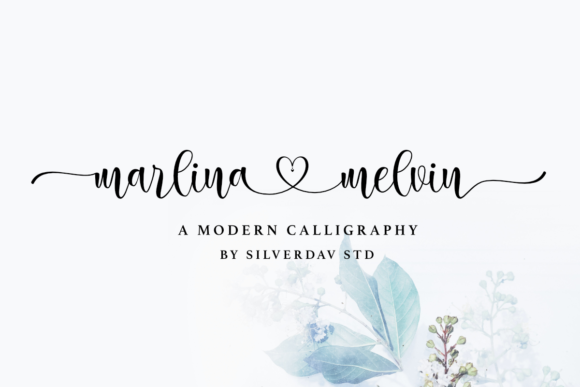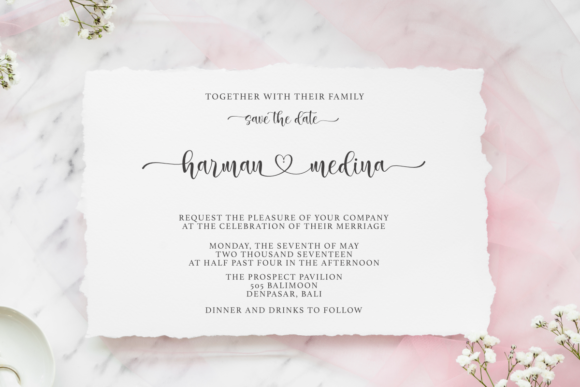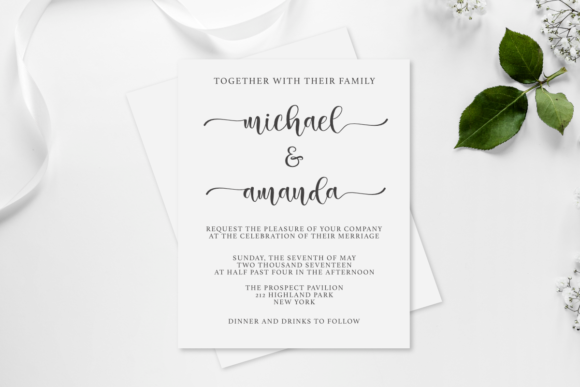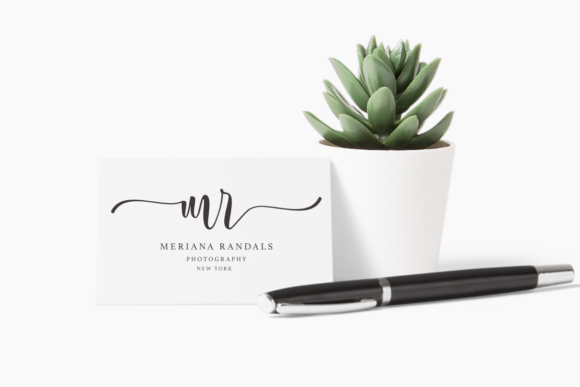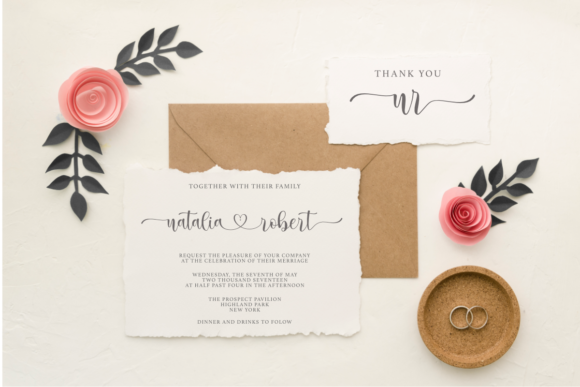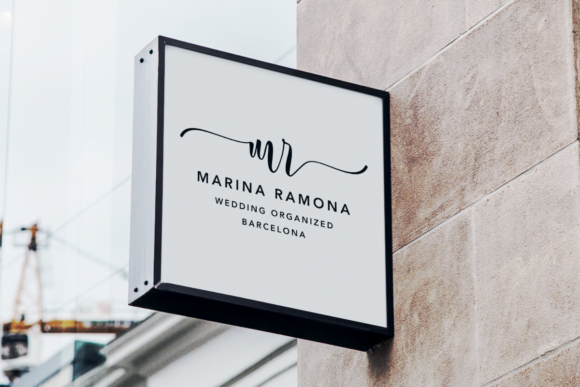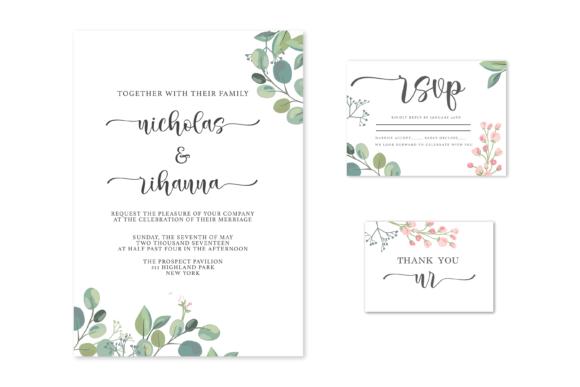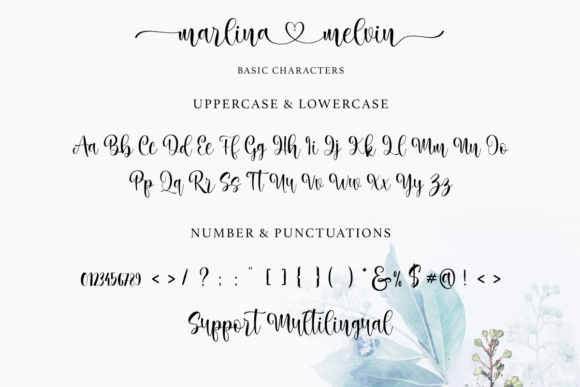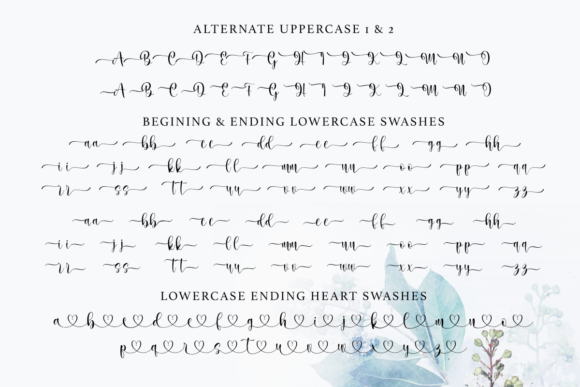
Marlina Melvin Font
About Marlina Melvin Font
Marlina Melvin feels incredibly romantic and unique. It looks stunning on wedding invitations, thank you cards, quotes, greeting cards, logos, business cards and every other design which needs a handwritten touch.